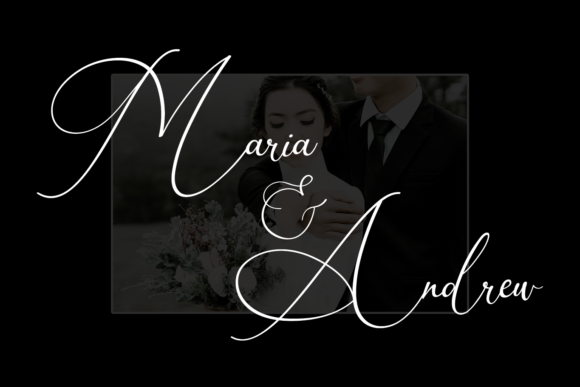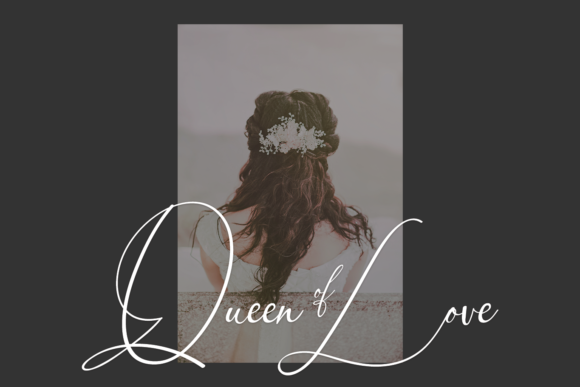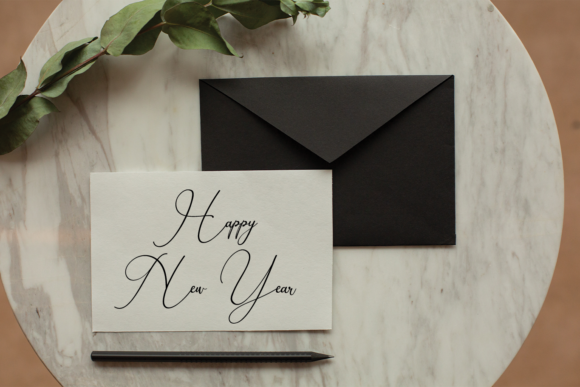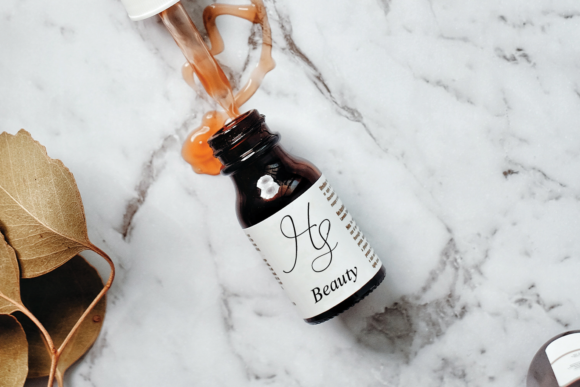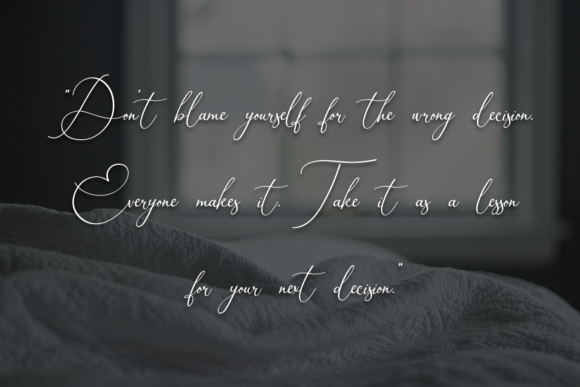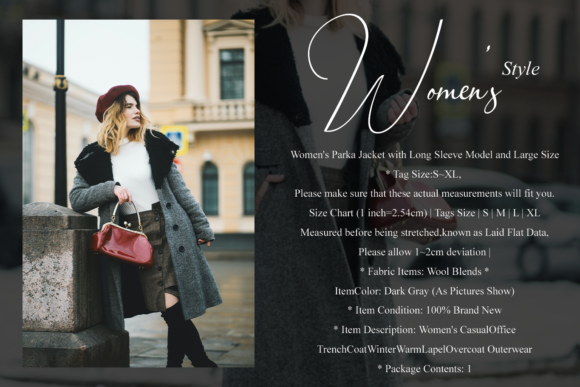
Bring Romance to Your Designs with Caligraphy Font
Have you ever been stuck on a design project, pouring over lines and shapes, trying to find the perfect combination to make it stand out? You know the moment when everything comes together, and your design transforms into something truly magical? That’s what Caligraphy Font can bring to your creative endeavors.
Caligraphy Font is a beautiful, elegant script that will add a touch of sophistication to any design. Its flowing characters seem to dance along the baseline, creating a sense of movement and energy that will captivate your audience. Whether you’re working on a wedding invitation, a business card, or a social media graphic, Caligraphy Font is the perfect choice to give your design a luxurious feel.
As a designer, you understand the importance of finding the right font to convey your message and evoke the right emotions. Caligraphy Font is a valuable addition to your toolkit, offering a unique and romantic style that will set your designs apart from the rest.
Key Features of Caligraphy Font
- Font Family: Caligraphy Font is a beautiful, elegant script font that comes in a variety of styles, including Regular, Italic, Bold, and Bold Italic.
- Unique Characteristics: Caligraphy Font features elegant connections between letters, subtle flourishes, and refined line endings, giving it a distinctive and sophisticated look.
Review of Caligraphy Font
Overall, I think the Caligraphy Font is a beautiful addition to any design project, but it’s not without its quirks. ✨ Let’s start with what works well.
- The font’s elegant, handwritten feel adds a touch of sophistication to any text-based design.
- The wide range of weights and styles available makes it easy to find the perfect fit for your project.
- The font’s OpenType features allow for some really interesting and creative uses, such as swashes and ligatures.
However, there are some limitations to keep in mind. ⚠️
- The font can be a bit difficult to read at small sizes, especially for those with vision impairments.
- The font’s complexity can make it tricky to pair with other fonts, and it may not be the best choice for body text.
Overall, I think the Caligraphy Font is a great choice for designers looking to add some flair to their projects, but it’s not a one-size-fits-all solution. With a little bit of caution and creativity, it can be a real showstopper.